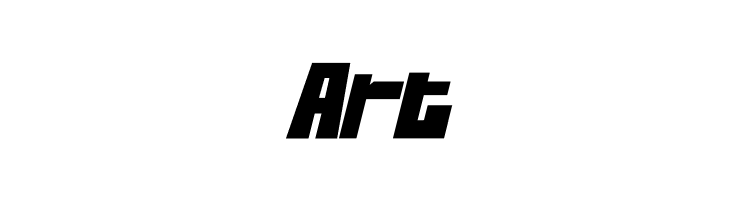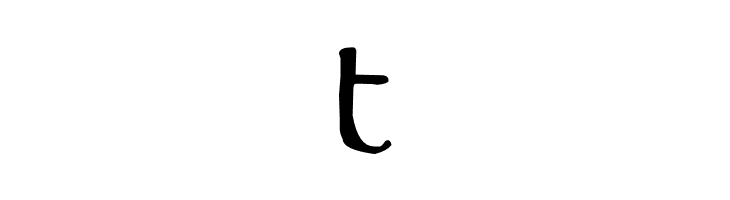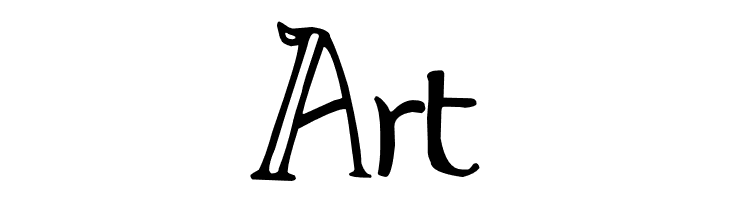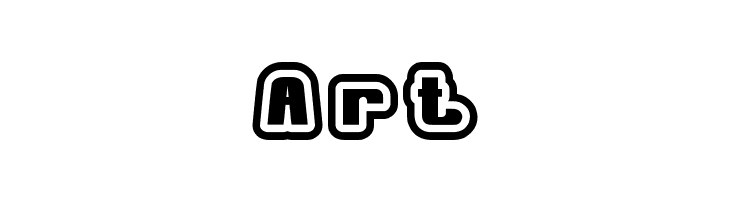
A sleek, modern font with elongated, narrow characters and a minimalist design.
A sleek, italicized font with thin, elongated characters for a modern look.
A thin, hand-drawn font with an organic and whimsical style.
A thin, hand-drawn font with a playful and informal style.
A bold, condensed font with a strong vertical emphasis and modern appeal.
A whimsical, decorative font with a fantasy-like, medieval influence.
An ornate and decorative font with intricate swirls and flourishes.
A bold, geometric font with a modern and industrial aesthetic.
A bold, playful font with rounded outlines and a double-layered border.